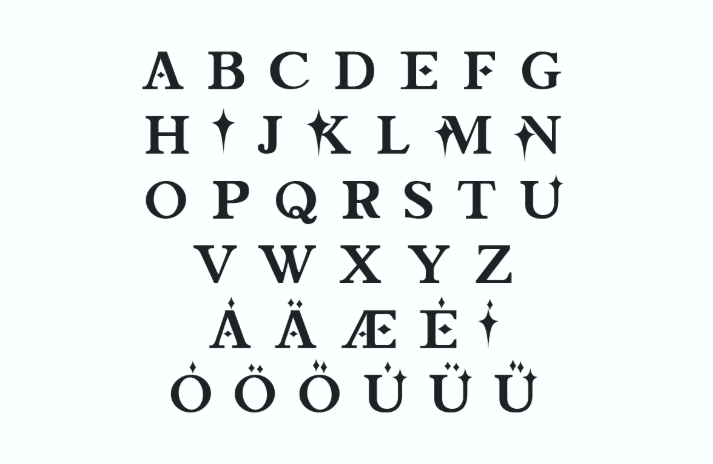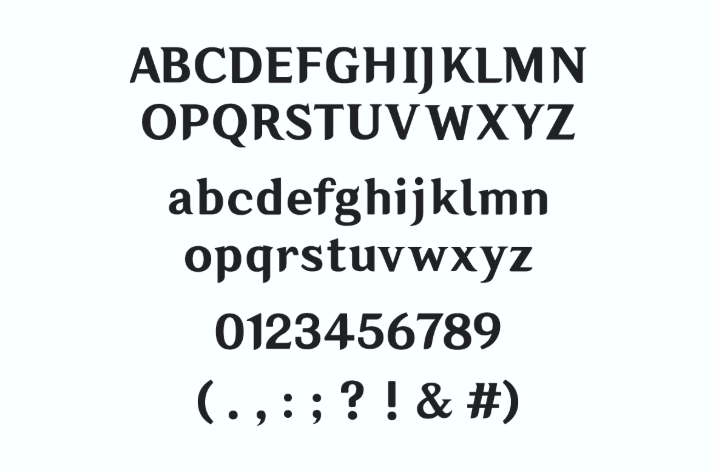
Genshin Impact Font-Introduction
The Genshin Impact font is used in an open-world action RPG game released in 2020 and developed by MiHoYo/HoYoverse. The font has been the most significant in creating that immersive Teyvat world in action RPG Genshin Impact developed by miHoYo Co. Its design is principally elegant and enchanted, harmonising with the game’s storyline and graphic design.
The peculiarities of the Genshin Impact font give graphic designers full eyes, and I was provided with much inspiration. Regardless of the type of project you are designing, from fan art to branding assignments or social media-related designs, this font adds a rare sparkle of elegance and creativity. Here’s a detailed breakdown of why it’s so unique and many people love it.
Features of Genshin Impact Font
As a part of the interface’s type, the features of the Genshin Impact font will be discussed below:
- Whimsical Elegance
The curve and the relief are minimal, but the round details are enough to inspire the feelings connected with the magic and a fairy tale. It is perfect when you want to conceptualize designs that require some form of professionalism with just a hint of fun.
- Clean Serif Structure
In its purest form, it is a serif font that provides its users with highly legible output in various formats. Because of its structured setup, using it in both online and offline media is helpful.
- Cultural Fusion
The font reflects the game’s Eastern and Western anime-inspired elements. A clue to its ability to work everywhere and at any age is its subliminal roots in traditional calligraphy.
- Versatile Usage
The chosen font is flexible for the game’s dialogues, menus, advertisements, posters, and fan art. Because of the blend of beauty and adorning and serving functions it is a designers’ paradise.
- Emotional Resonance
A good font is not only pretty to look at; it says something. Adopting the playful Genshin Impact font, the game’s typography conveys magic and an adventurous theme that can resonate with a viewer emotionally.
Genshin Impact Font Used in Logo
Genshin Impact fans are stunned by the game’s logo, evidently due to typography designs. The font used in the logo is a new form designed, “HY WenHei 85W”, established by Beijing Hanyi Innovation Technology Co., Ltd. It is also applied to the World of Warcraft user interface text and design, which provides proper association.
Genshin Impact Font Used in Drip Marketing
Feel free to explore the endless creative possibilities with this font. Whether you’re creating fan art, writing stories, or designing content, this font is perfect for adding a touch of Teyvat magic to your projects.
Applications of Genshin Impact Font
The versatility of the Genshin Impact font means it can shine in various projects. Here are some creative applications:
- Fan Art and Merchandise
Fans of Genshin Impact often use the font in their creative works, from posters and prints to custom merchandise like t-shirts and mugs. Its association with the game adds authenticity to these designs.
- Fantasy-Themed Projects
If you’re dealing with a project related to fantasy or magic, you’ll undoubtedly benefit from the Genshin Impact font. Diese für Buchumschläge, Einladungen oder für das Design von zu Produkten mit passenden Themen verwendet.
- Social Media Graphics
Sites like Instagram and Pinterest, for instance, will require perfect typography to capture visitors’ attention. Everyone would want their graphics to achieve extra mileage, especially for gaming pages, personal projects and business accounts, and all this can be achieved when using the Genshin Impact font.
- Game Design
Game developers and indie creators can use the font for in-game text, loading screens, or promotional material. Its readability and style ensure it complements the visual aesthetic of many genres.
- Logo Design
The font is perfect for brands associated with fantasy, adventure or storytelling since it provides elegance and the necessary character. Use it together with related graphic aspects to produce distinctive logos.
Conclusion
The Genshin Impact font is not just for the video game; it is the creative expression of that game and its ideas. Combined with an elaborate and rather silly style, it seems like a perfect option for graphic designers, logo makers, and game fans.
It does not matter if you are working on anime fan art, a logo, or any other works in the fantasy genre; this font has no limits. When knowing what it is, experimenting with what it can be used for and thinking about the counterparts, one opens a new page in the creativity of work.